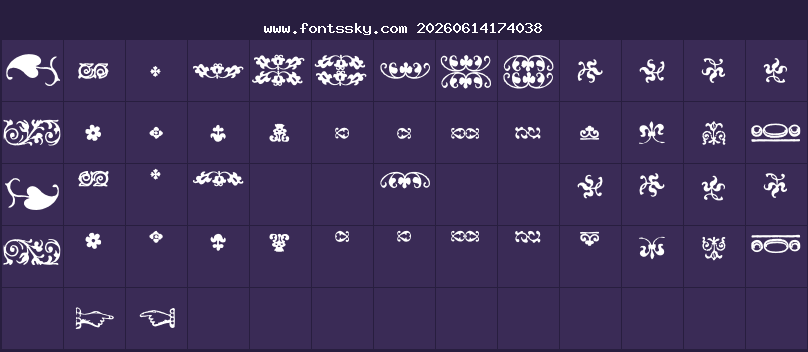
• Font Name: IM FELL FLOWERS 2
• Designer: Igino Marini
• Description: Fell Types - Flowers. Typeface from the types bequeathed in 1686 to the University of Oxford by John Fell. Originally cut by R. Granjon, P. De Walpergen & others. To be printed at 17,5 points to match the original size.